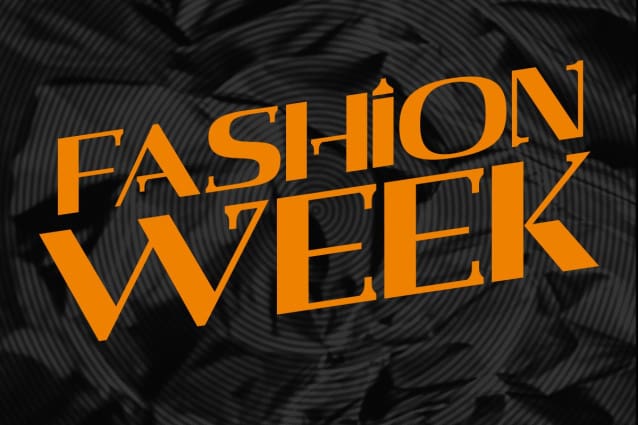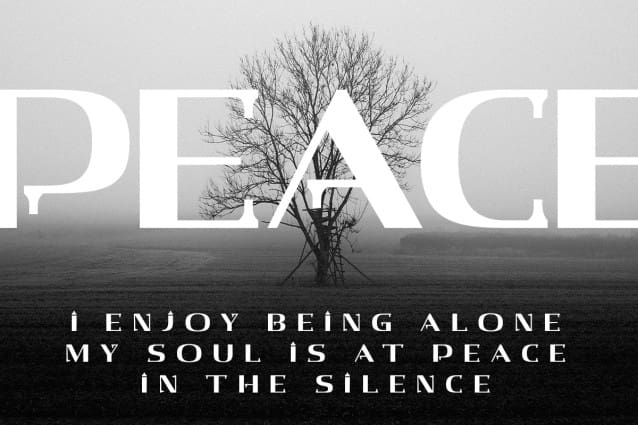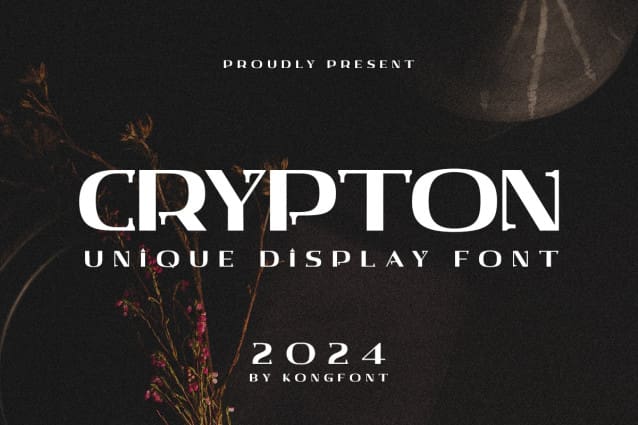
Crypton Font
Crypton Font – Modern Unique Display Font provides a new look that is different from the general fonts. This font is a display font that is modern, simple, and elegant. It can also be used as a bold and modern font.
Crypton Font – Modern Unique Display Font has many matches when combined with the product to be used. Fashion brand tags such as clothing will work well with this typeface. There is no need to add excessive pictures and ornaments because the Crypton Font – Modern Unique Display Font has presented its identity where a simple yet elegant impression radiates. Crypton Font – Modern Unique Display Font is a typeface that can be used as digital fonts and print fonts. This font can be used as a title that appears first in intro videos that catch the viewer’s attention at a first impression.
Posters and magazine cover work especially well when using the Crypton Font – Modern Unique Display Font. This is because even though this font is a serif typeface, it can be seen clearly and can be distinguished by each letter. So this font is included in legible fonts.